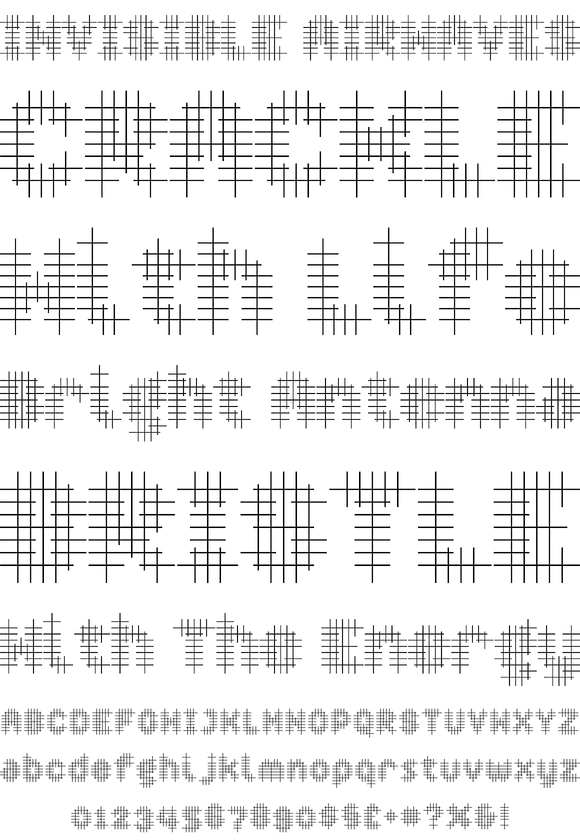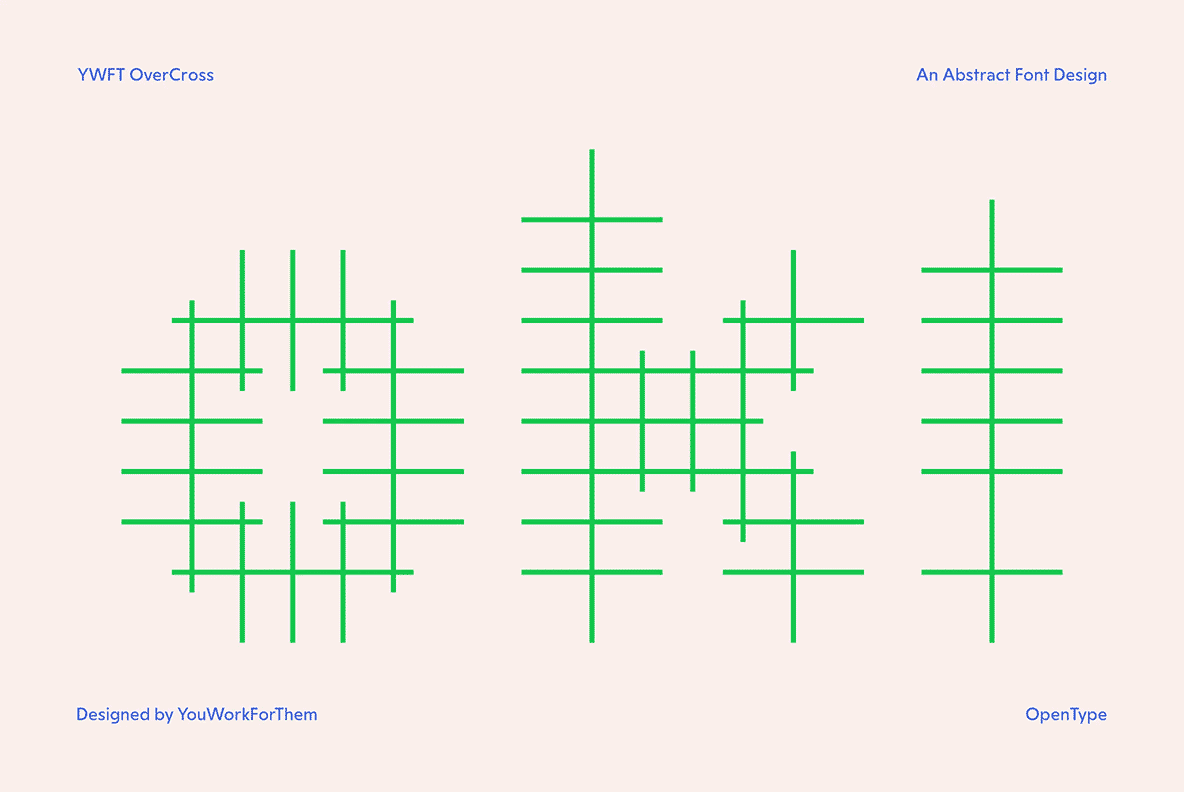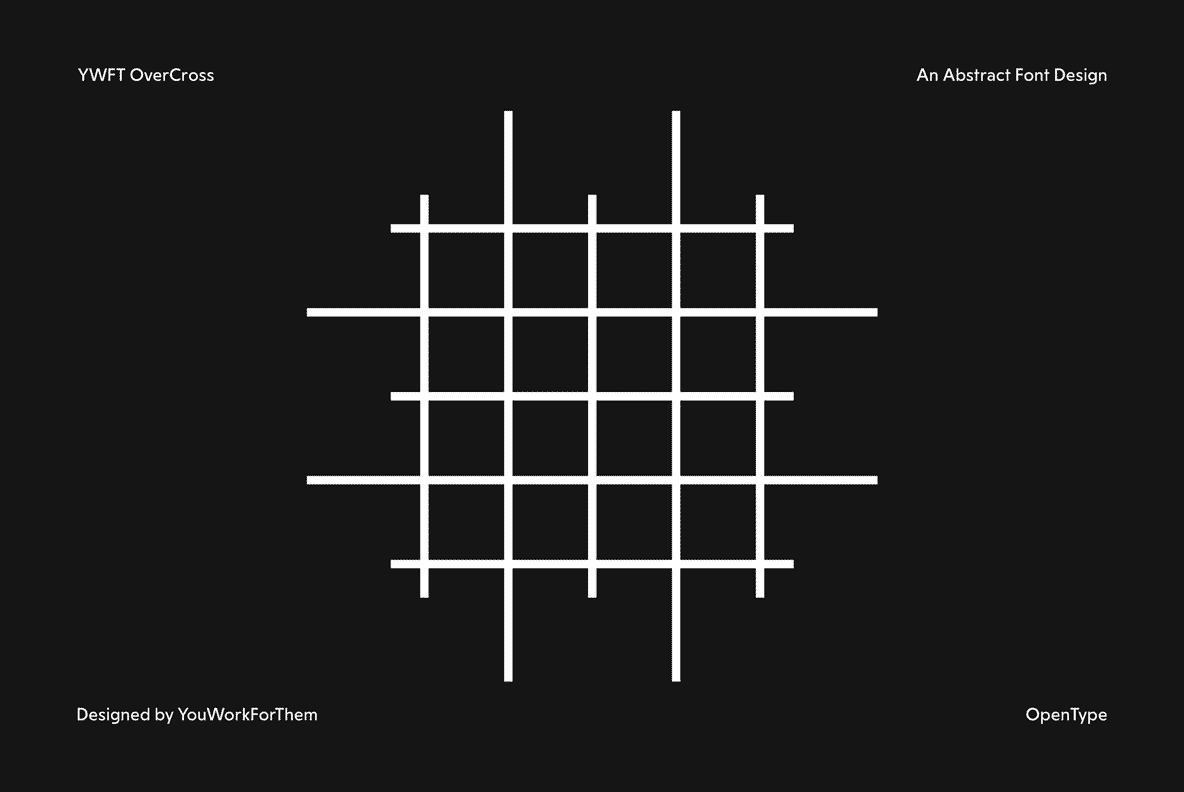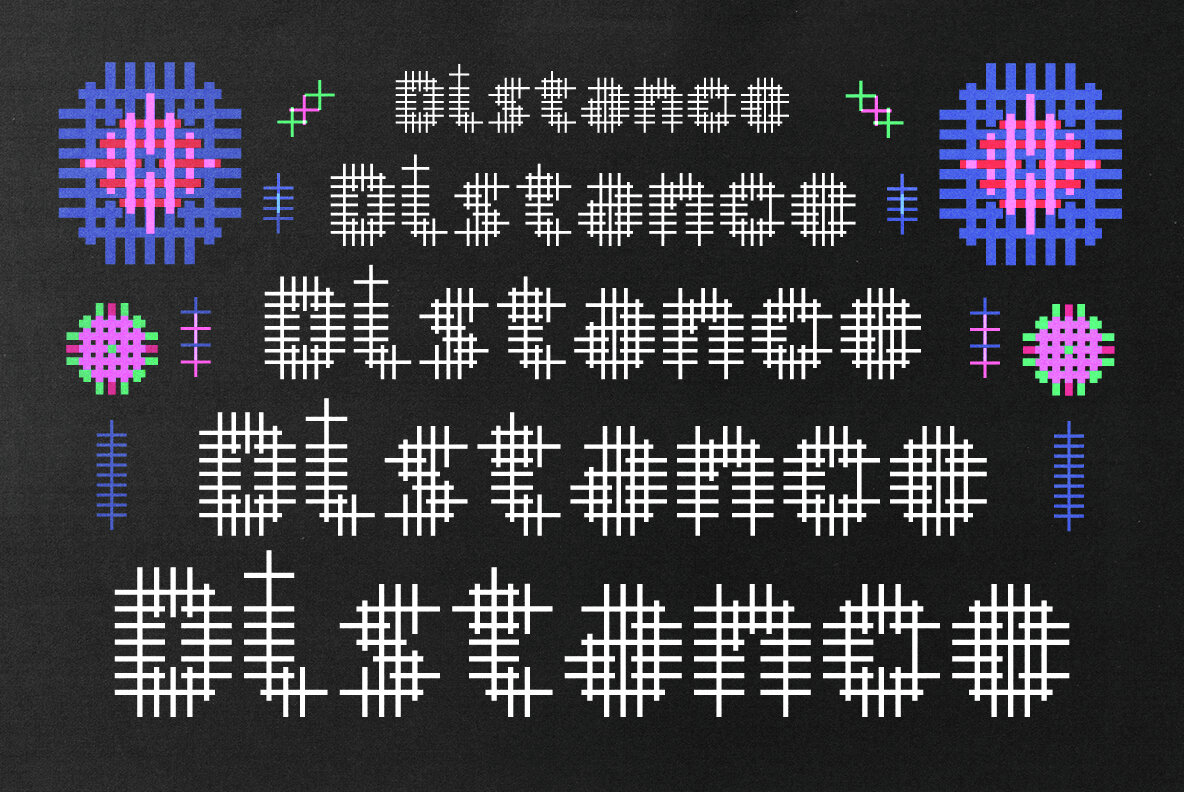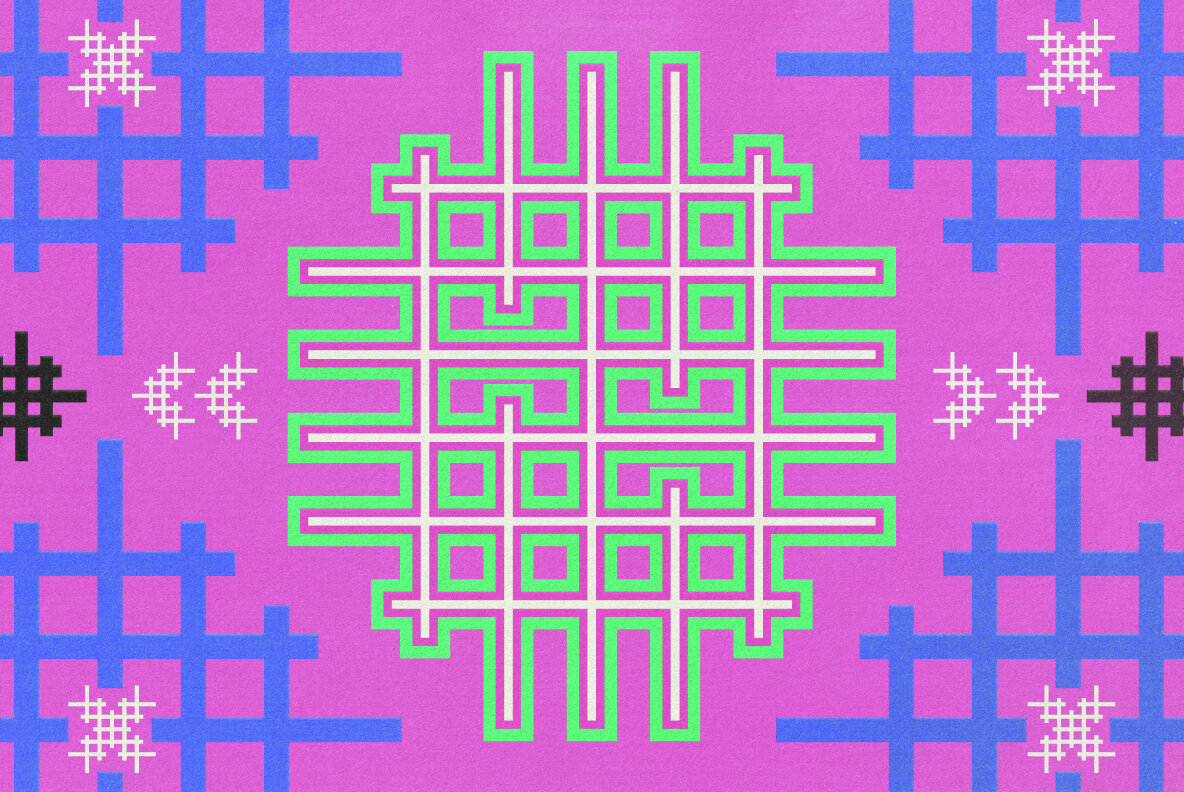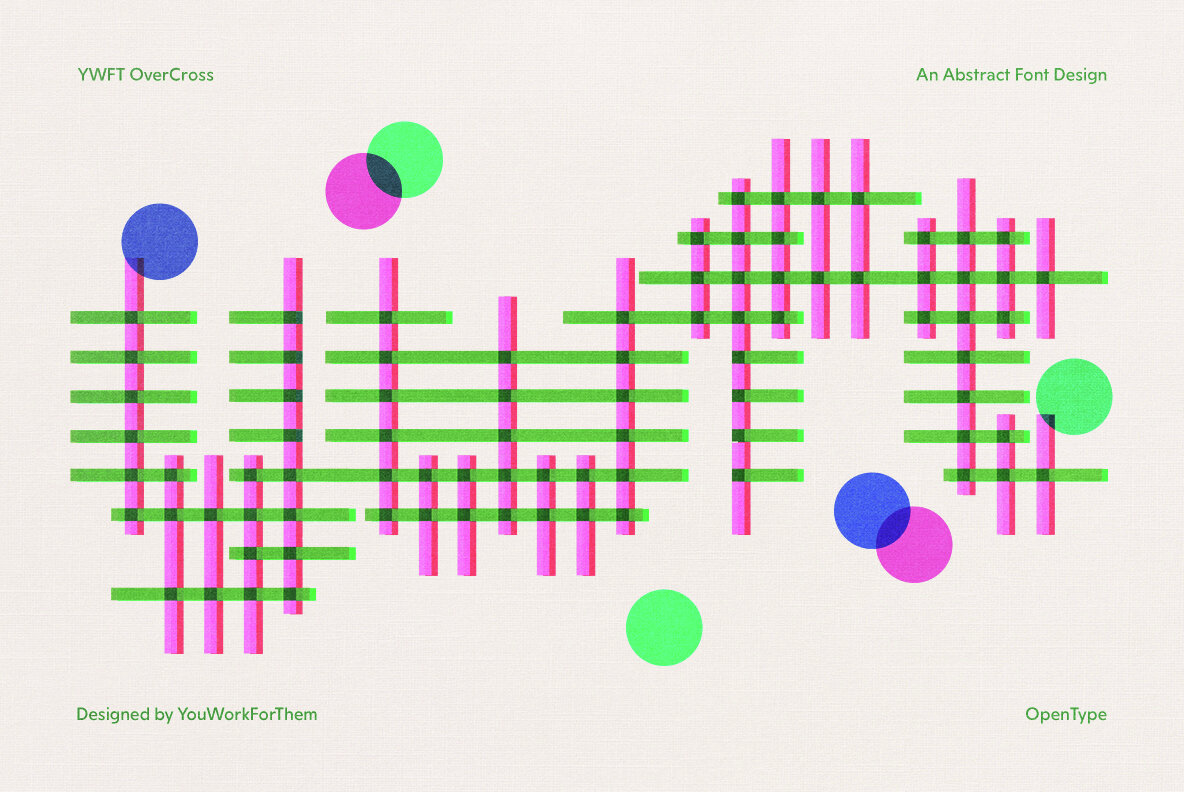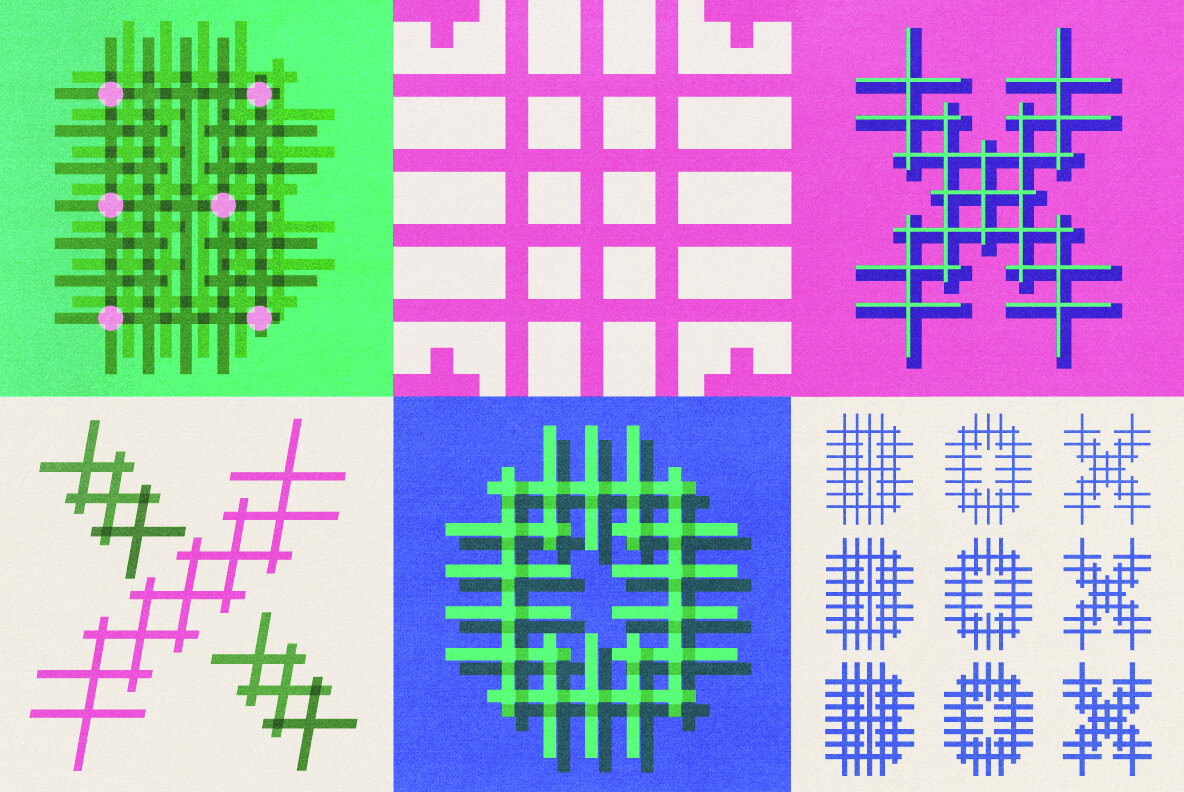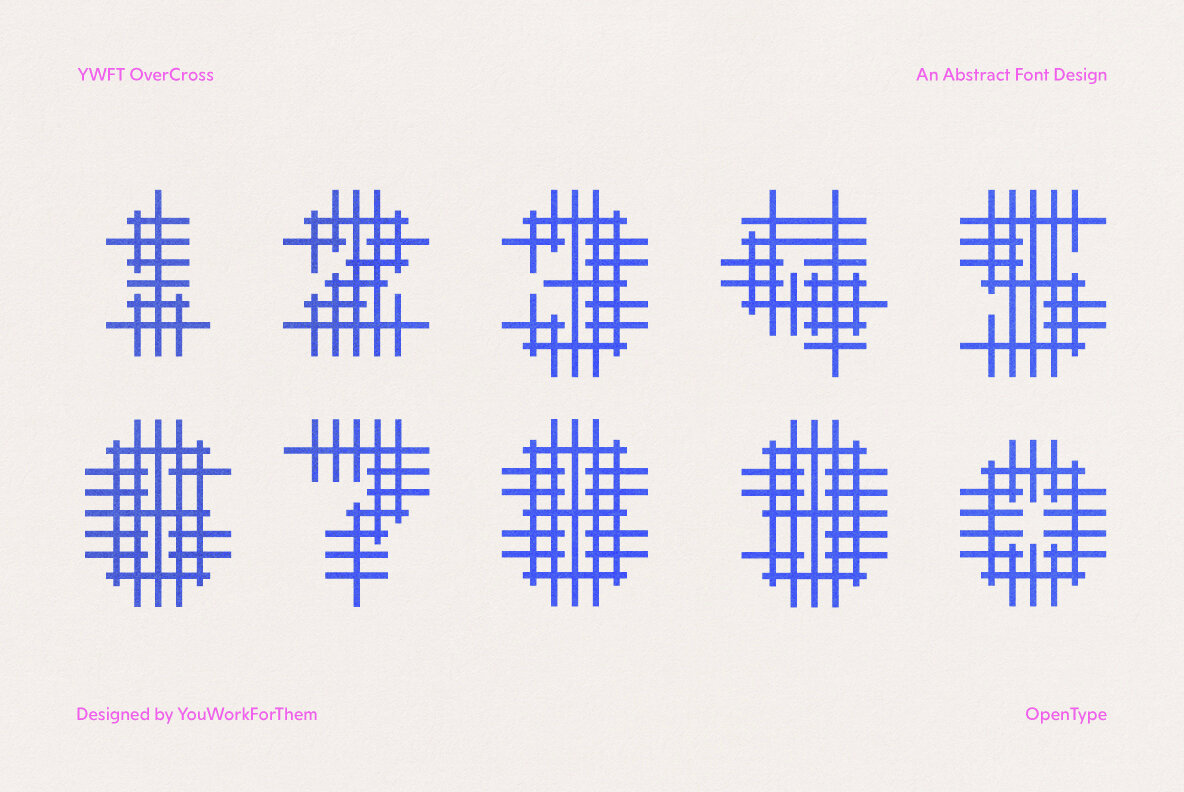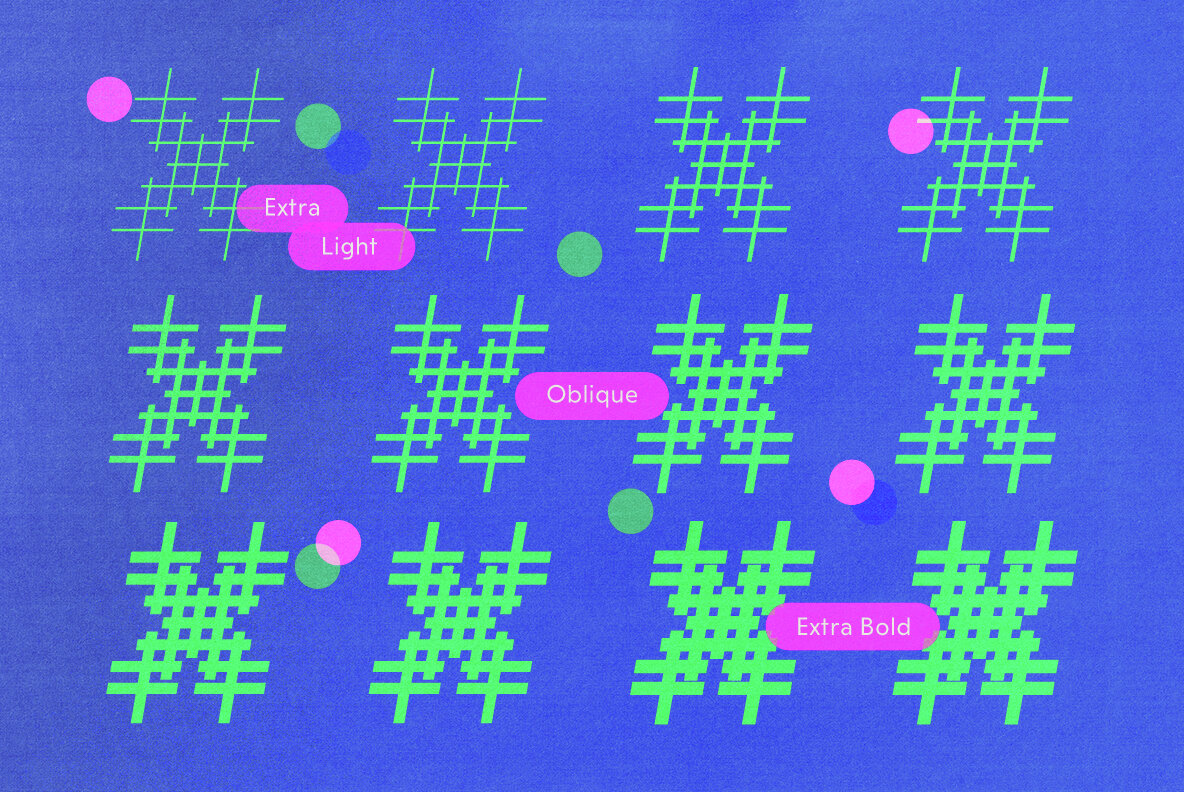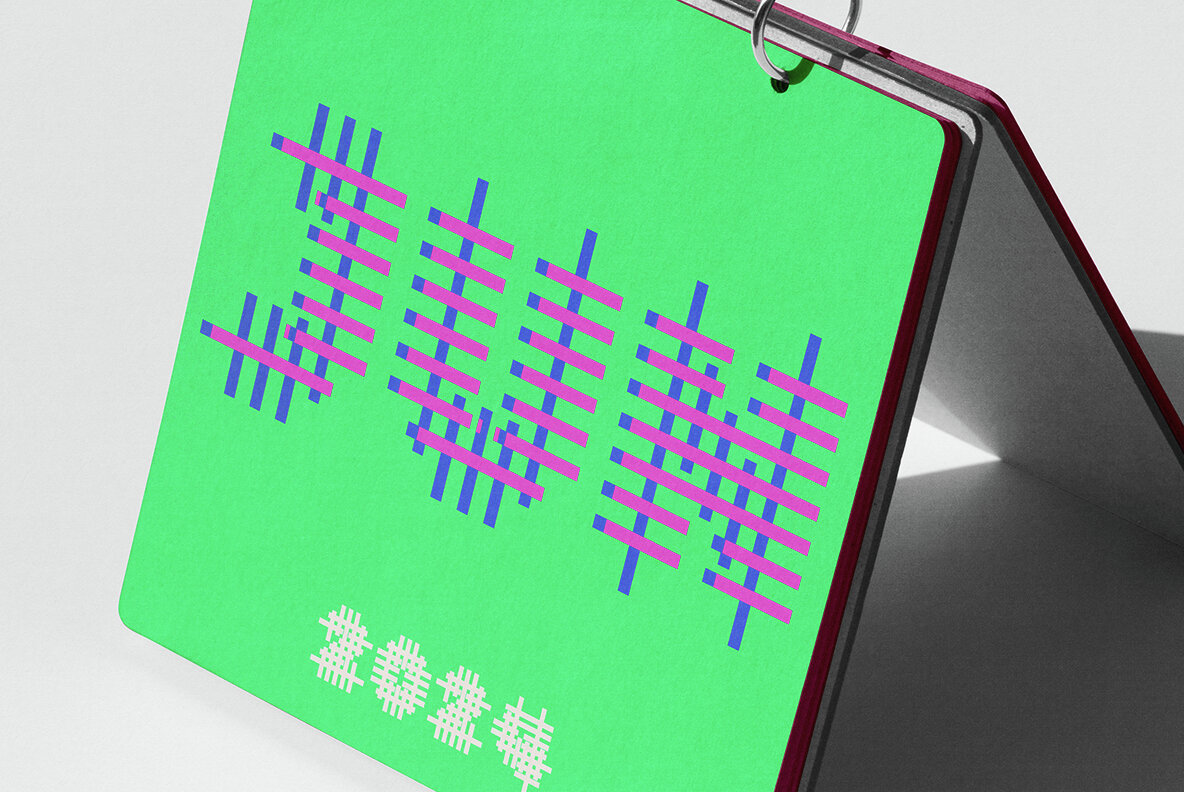
YWFT OverCross originally started as a typeface design that set out to explore visual form while retaining legibility. At close range, YWFT OverCross is visually beautiful but rather unreadable.
YWFT OverCross originally started as a typeface design that set out to explore visual form while retaining legibility. At close range, YWFT OverCross is visually beautiful but rather unreadable. Take a step back, however, and it becomes completely legible, perfect for large-format work. To this day, we still don't fully understand how a mesh of lines can make these letter forms, but they do! YWFT OverCross was completed in 2002, and converted to Opentype in 2010. It has been used by numerous magazines and has been seen multiple times on independent t-shirt and postcard designs. Designed exclusively by Michael Cina and YouWorkForThem.